Top 20+ Best Fonts For Your Websites In 2023
Fonts are crucial for creating an awesomeuser experience, conveying brand values, and completing your web design. Not only do fonts affect the readability of your content, but they can also have a powerful psychological impact on your visitors. Each font family has its own character, look, feel and different variations. Choosing the right web fonts is critical to your site’s success. Luckily, this guide is here to help you find the best fonts for you. We’ve researched and found 20 of the best fonts for websites.
Orion pro - Typeface + Web Fonts
Orion Pro Typeface
Orion Pro is a modern and Minimal Sans Serif typeface with for Minimal typography designs, Orion Pro can keep the minimalism at its level best and is a Perfect choice for, Display, headlines, paragraph, subheading, notes, Big Banners. Classic & Decorative Typography Designs.
Font Designed and Crafted by Maya GS, Distributed by Webhance Studio.
Sticky Web – Spooky Horror Font
Sticky Web is an incredibly unique display font. Masterfully designed to become a true favorite, this font has the potential to bring each of your creative ideas to the highest level! It doesn’t matter if you’re creating Game Horror, designs, or crafts that are meant to be scary – this font will provide any project with extra spook, fright, and feels.
Features:
- Uppercase
- Lowercase
- Symbols & Punctuation
- Numeral
- Ligature
- Alternate
- Multilingual Support
Branda - Dry Brush Web Font
Branda is dry brush script font created use special and realistic brush style. You'll get unique and free brush font style that make your project more awesome. It comes with upper case, lower case, numeric and punctuation. Time to make your artworks more realistic!
Pumpkin Web - Halloween Font
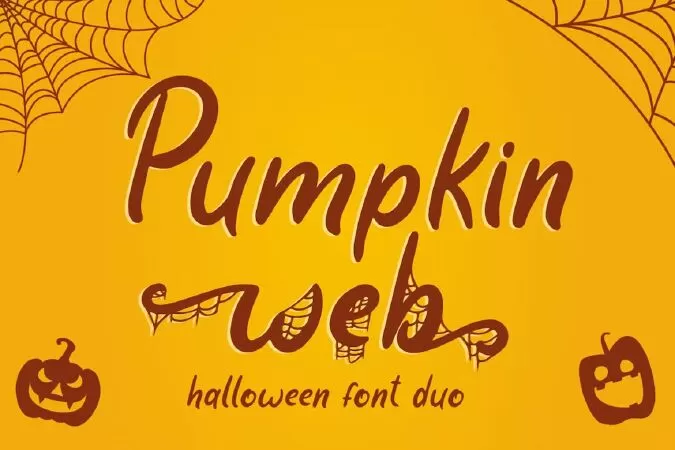
Pumpkin Web is an exquisite handwritten font, masterfully designed to become a true favorite. It maintains its classy calligraphic influences while feeling contemporary and fresh. Fall in love with it and bring your projects to the highest levels!
- Beginning & Ending Swash
Attype Studio
Diana Webber - SVG Font Duo
ntroducing, Diana Webber SVG Font Duo.
Diana Webber is a A Display Typeface Family which has two font that is a SVG script and SVG Serif! What a perfect pair.
The texture make it looks like a natural hand writing. Very suitable for you who needs a typeface for headline, logotype, apparel, invitation, branding, packaging, advertising etc.
This typeface is comes in uppercase, lowercase, punctuations, symbols & numerals, stylistic set alternate, ligatures, etc also support multilingual and already PUA encoded.
Suitable for you